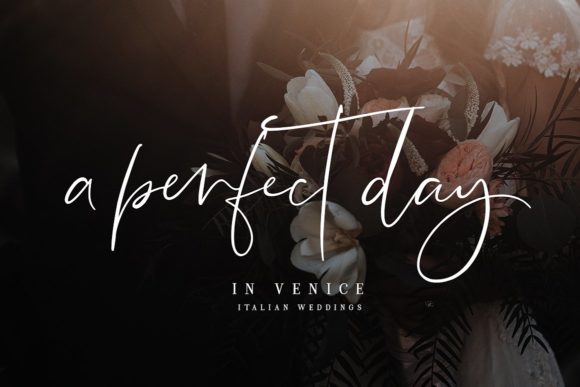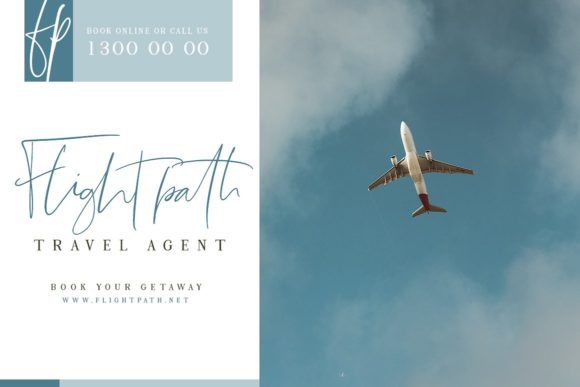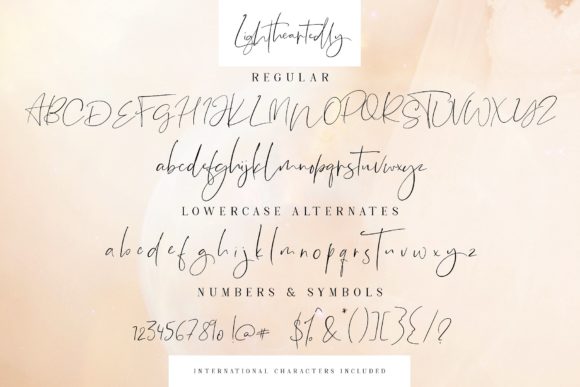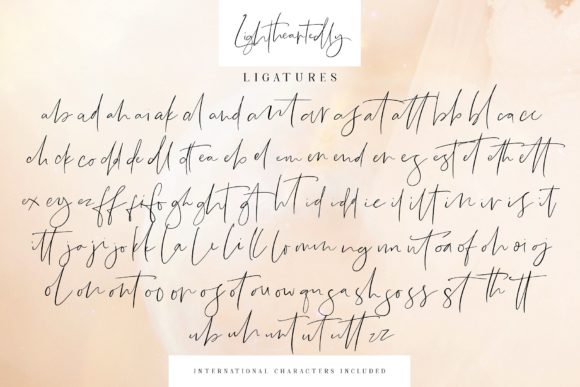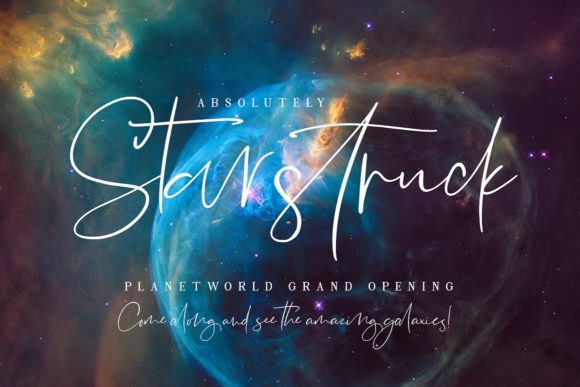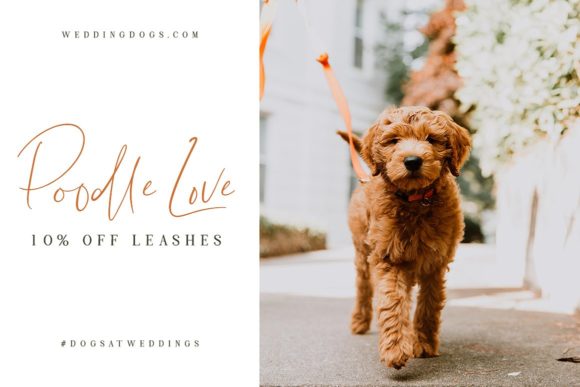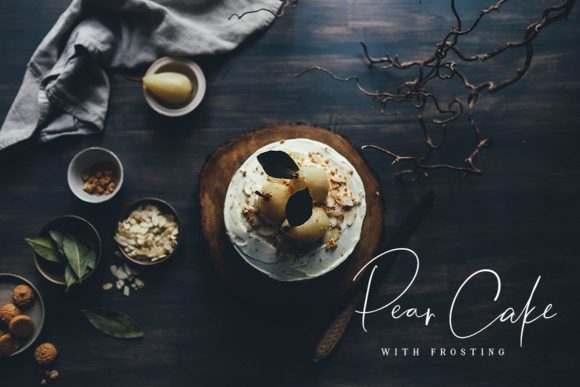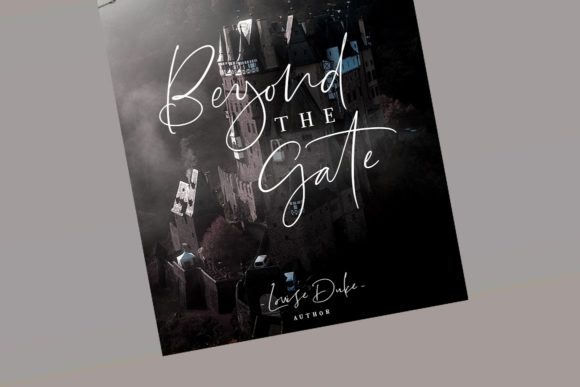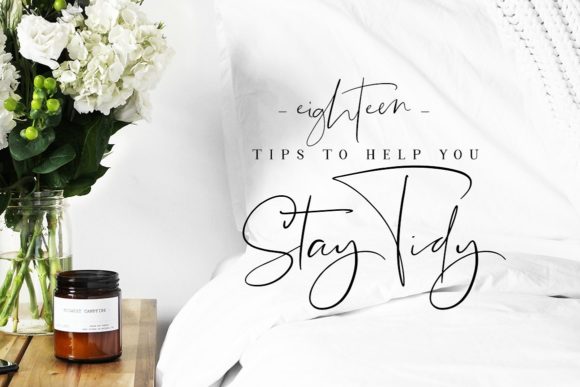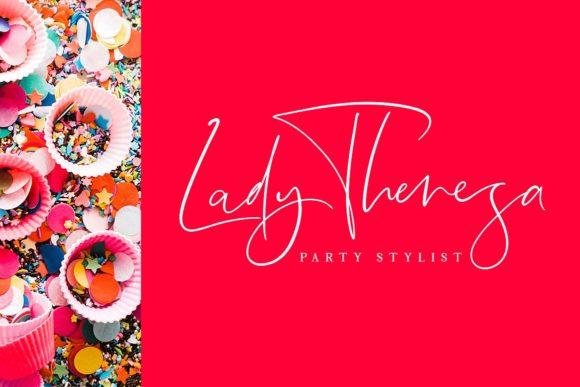
Lightheartedly Font
About Lightheartedly Font
The Lightheartedly is a classy, yet relaxed hand written script font.
It’s perfect for quotes, invites, weddings, posters, signs, branding, logos, planner stickers, and much more!